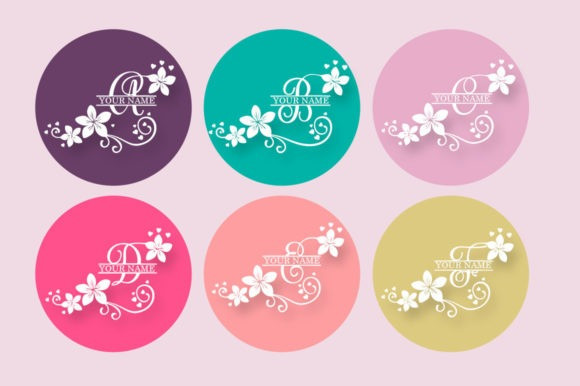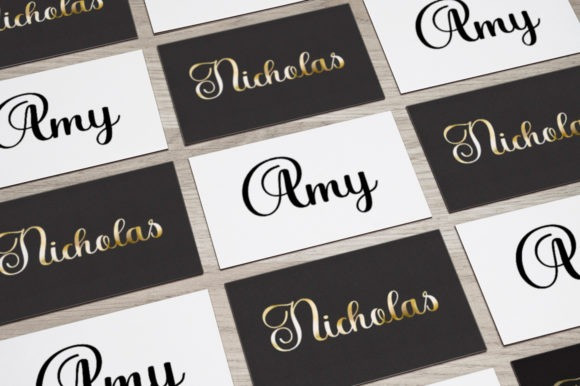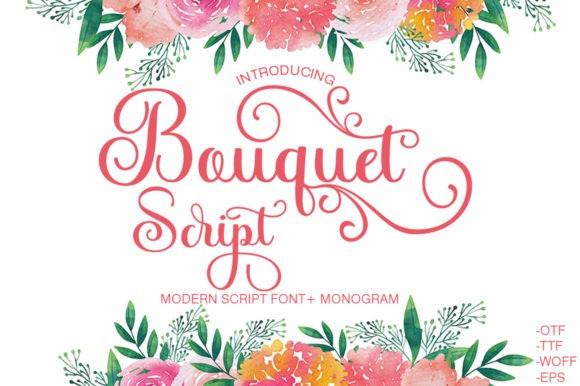
Bouquet Script Font
Bouquet Font feels incredibly elegant and delicate. It looks stunning on wedding invitations, thank you cards, quotes, greeting cards, logos, business cards and every other design which needs a handwritten touch. It features a varying baseline, smooth lines, gorgeous glyphs and stunning alternates.